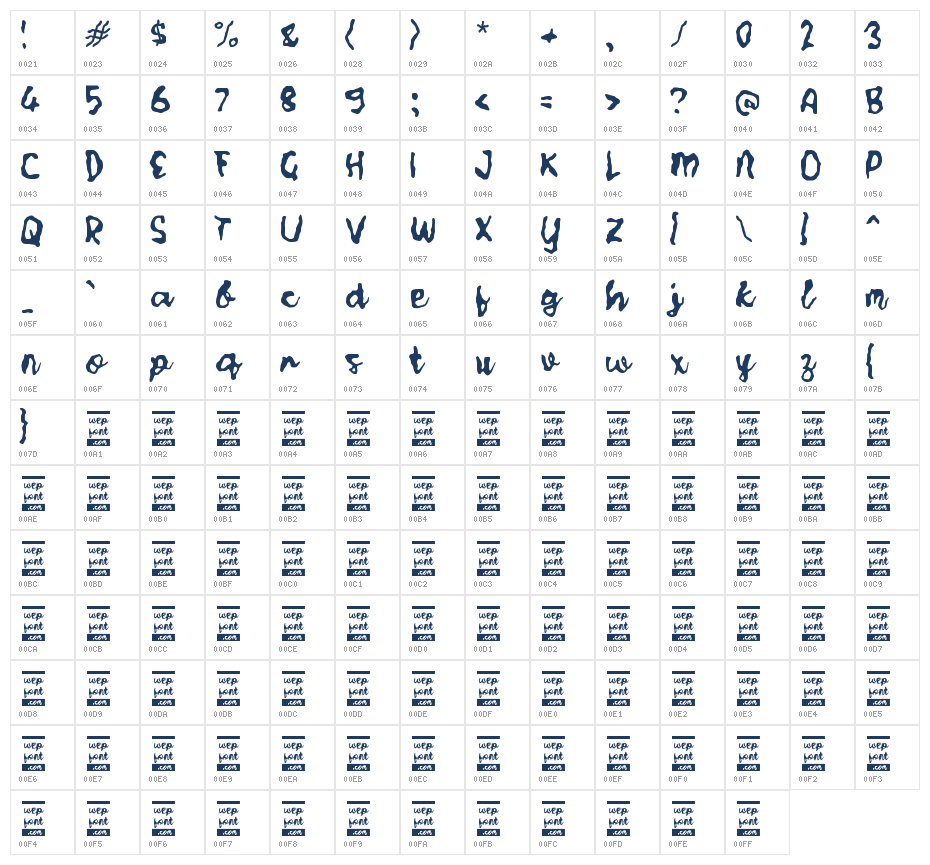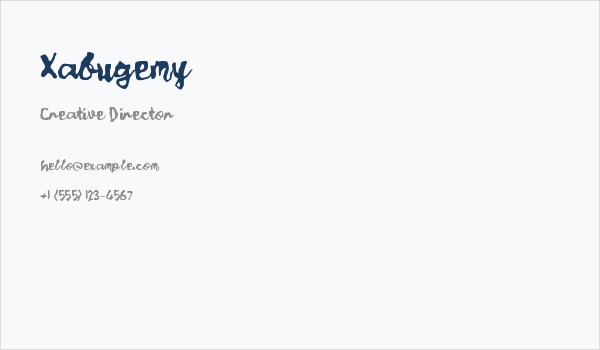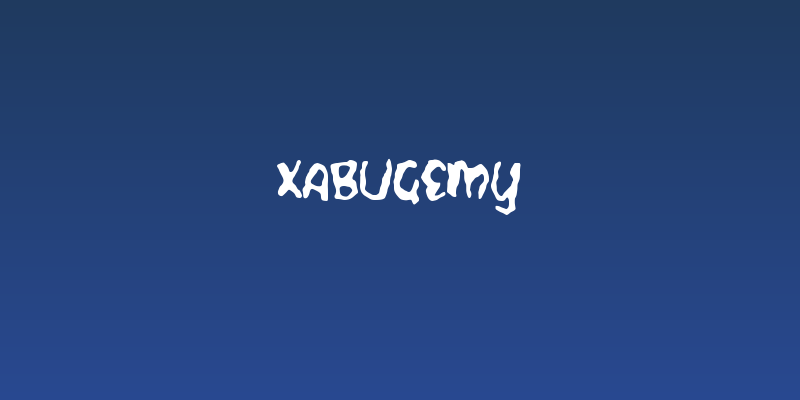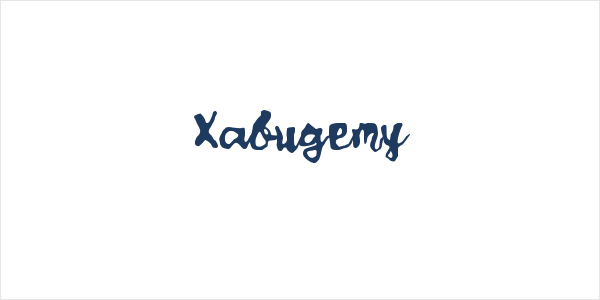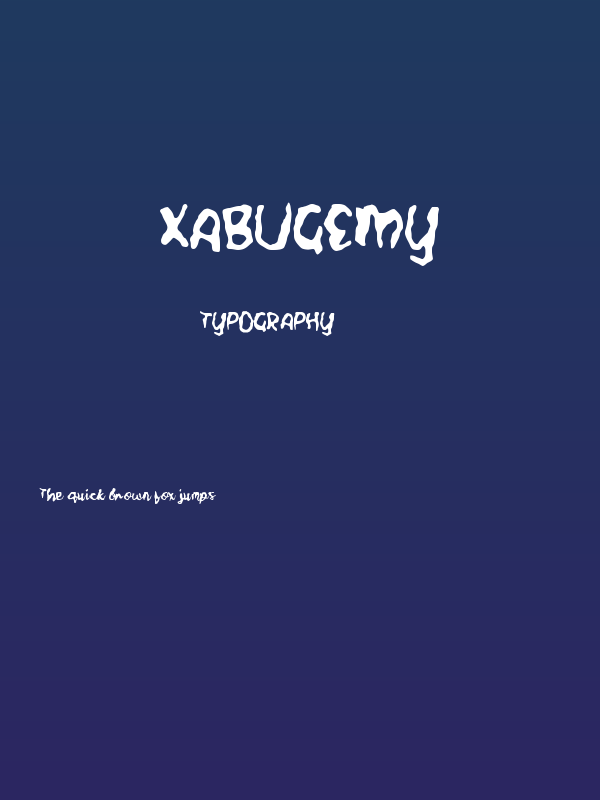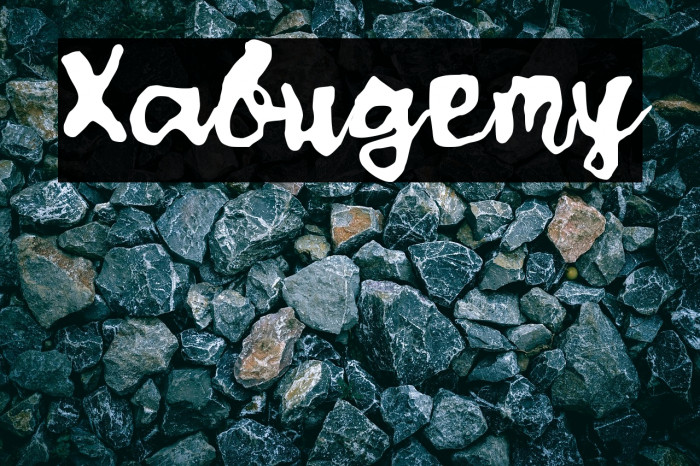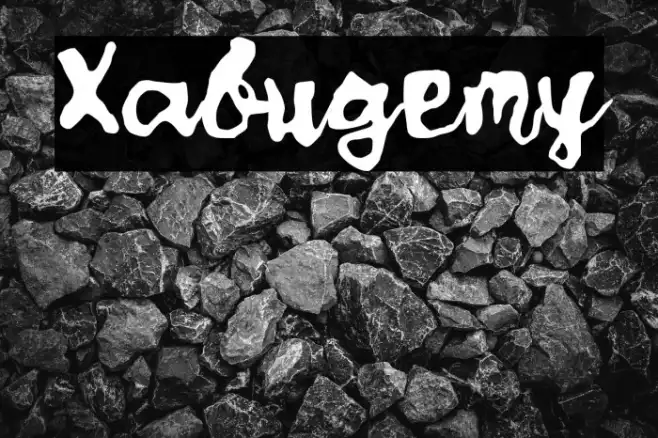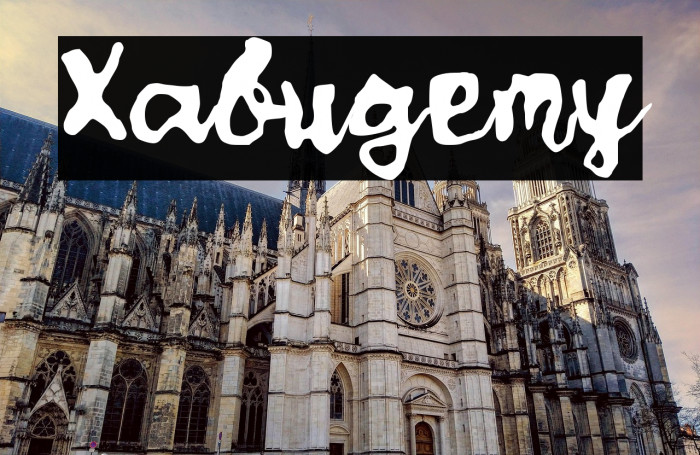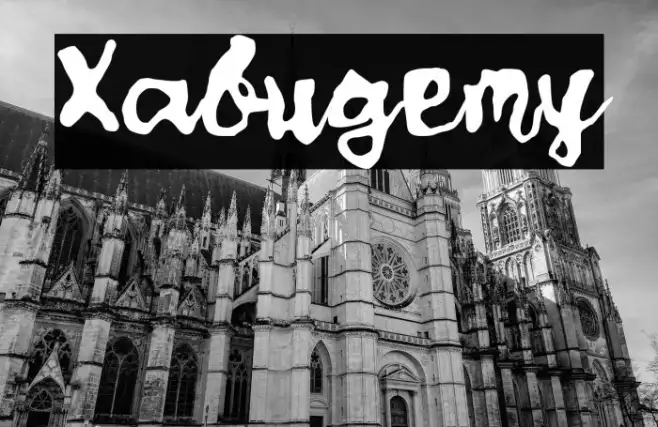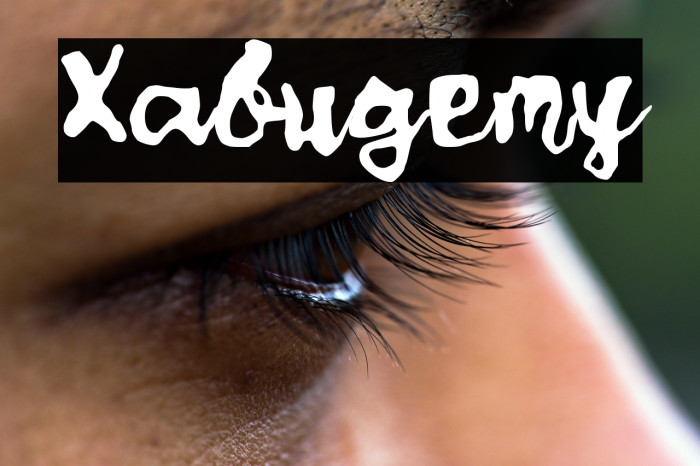
Xabugemy Font
Xabugemy Description
A playful, irregular handwritten style with a casual, organic feel.
| Overall Style | Casual, Playful, Organic |
| Use Case | Headlines, Logos, Creative projects, Invitations |